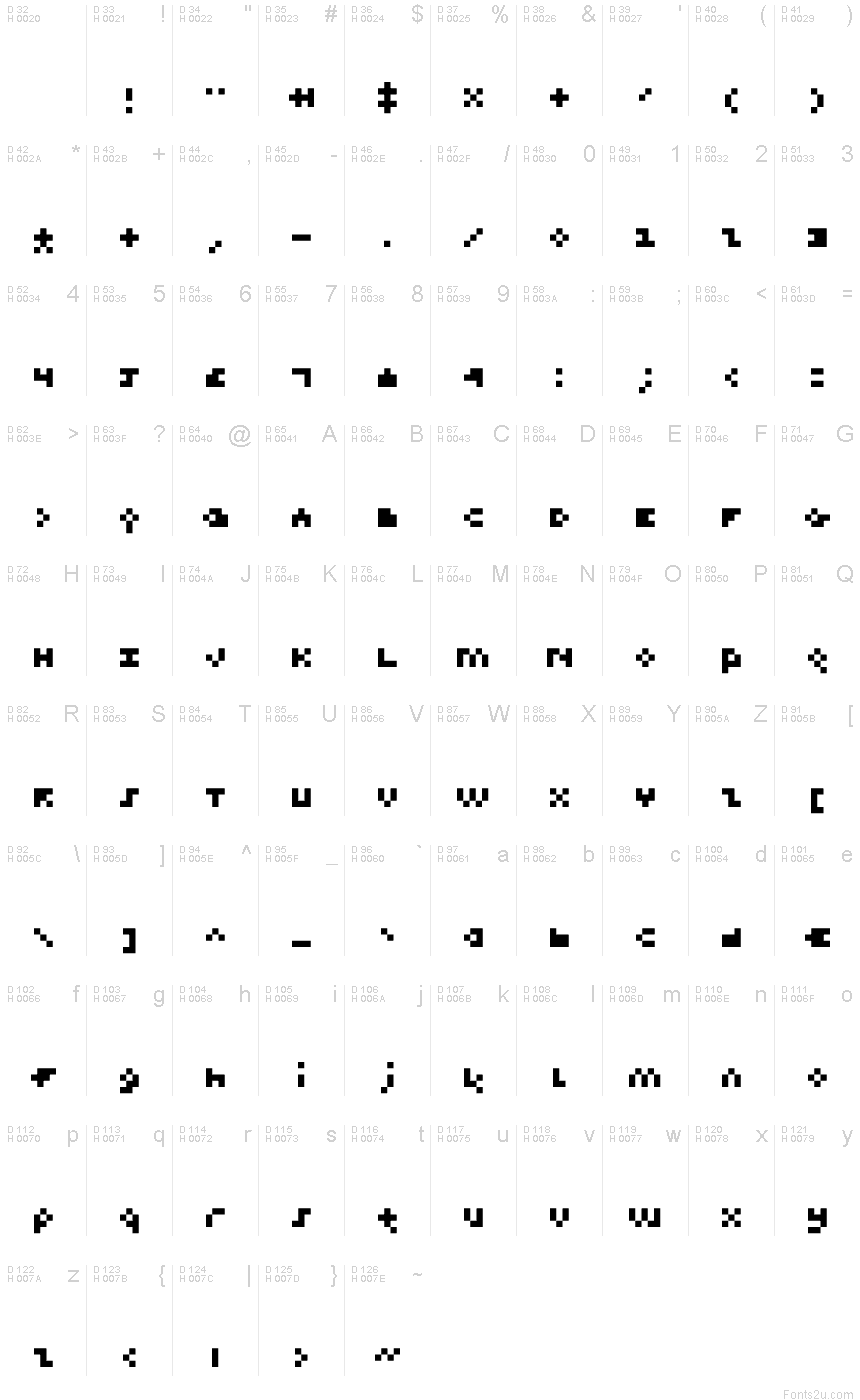
Teeny-Pix Regular
This is a super-teeny-tiny font. It was created specifically for my comic, Bitmap World, with general pixel-art usage also in mind. It is not meant to be used for normal wording. It's for those times you have a prop or signage where you need some lettering that is somewhat legible, but there is not enough space for it to be fully readable.
by Michelle Lehmann (Mirz123)